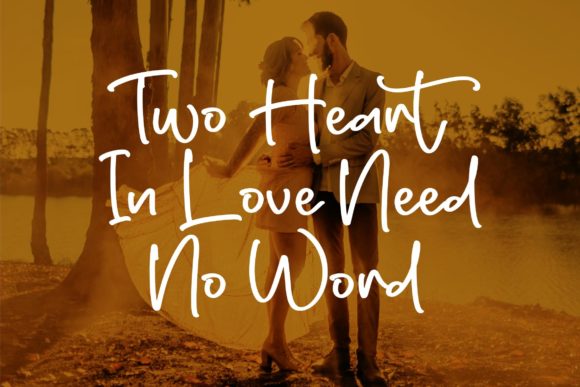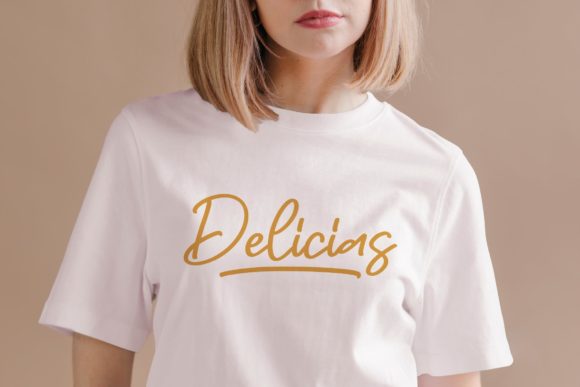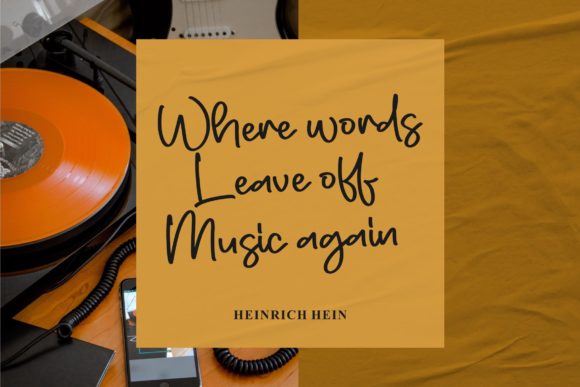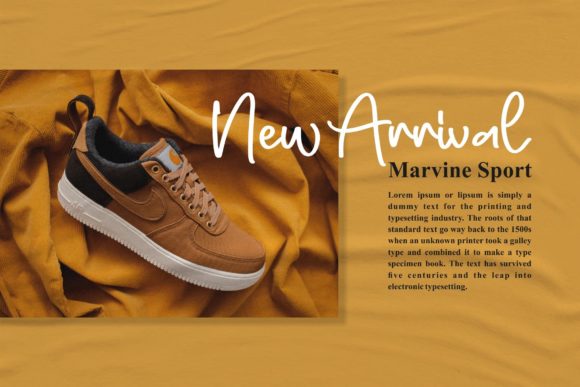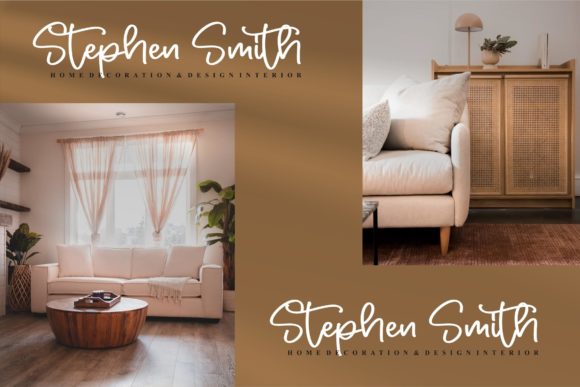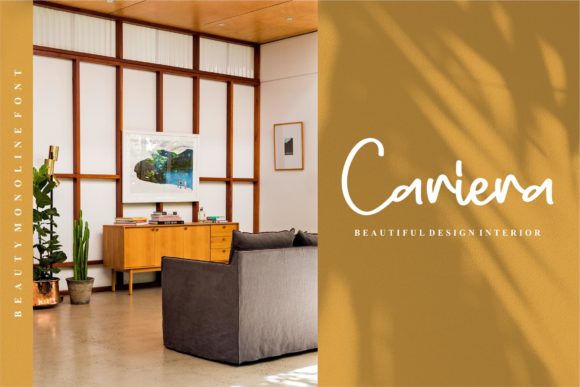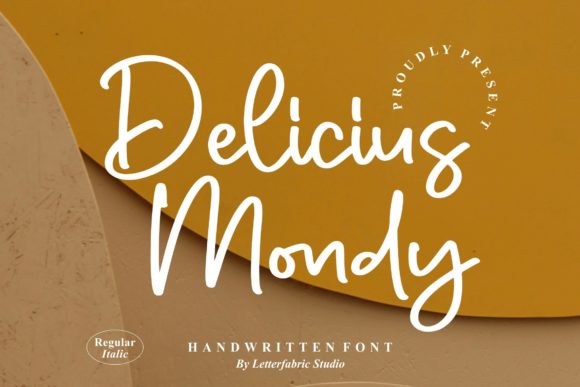
Introducing Delicius Mondy: A Whimsical Handwritten Font for Designers and Crafters
Are you tired of using the same old fonts in your designs? Do you want to add a touch of magic to your posters, flyers, and prints? Look no further than Delicius Mondy, a modern yet whimsical handwritten font that’s sure to transport your designs to a world of wonder. In this article, we’ll take a closer look at Delicius Mondy and explore its features, benefits, and uses.
What is Delicius Mondy?
Delicius Mondy is a carefully crafted handwritten font that combines modern style with a playful, whimsical touch. Its unique letterforms and flowing lines make it perfect for designs that require a personal and creative touch. Whether you’re a designer, crafter, or DIY enthusiast, Delicius Mondy is an excellent choice for adding a dash of personality to your work.
Key Features of Delicius Mondy
- Handwritten style: Delicius Mondy is a handwritten font that exudes warmth and personality, making it perfect for designs that require a human touch.
- Modern yet whimsical: This font combines modern style with a playful, whimsical touch, making it ideal for designers and crafters who want to add a touch of magic to their work.
- Versatile: Delicius Mondy can be used for a wide range of designs, including posters, flyers, prints, and more.
- Easily readable: Despite its whimsical nature, Delicius Mondy is easily readable, making it perfect for designs that require a clear and concise message.
Benefits of Using Delicius Mondy
So, why should you choose Delicius Mondy for your designs? Here are just a few benefits of using this amazing font:
- Adds personality to your designs: Delicius Mondy is a unique and creative font that will add a touch of personality to your designs, setting them apart from the crowd.
- Perfect for creative projects: Whether you’re working on a creative project, such as a poster, flyer, or print, Delicius Mondy is an excellent choice for adding a touch of whimsy and magic.
- High-quality: Delicius Mondy is a high-quality font that’s been carefully crafted to ensure that it looks amazing in any design.
Uses for Delicius Mondy
Delicius Mondy is a versatile font that can be used for a wide range of designs, including:
- Posters: Add a touch of magic to your posters with Delicius Mondy, perfect for advertising events, products, or services.
- Flyers: Create eye-catching flyers with Delicius Mondy, ideal for promoting events, businesses, or causes.
- Prints: Use Delicius Mondy to add a personal touch to your prints, such as brochures, catalogs, or business cards.
- DIY projects: Delicius Mondy is perfect for DIY enthusiasts who want to add a touch of personality to their craft projects, such as signs, banners, or decorations.
In conclusion, Delicius Mondy is an amazing handwritten font that’s perfect for designers and crafters who want to add a touch of magic to their work. With its modern yet whimsical style, Delicius Mondy is sure to immerse your designs in a world of wonder. Whether you’re creating posters, flyers, prints, or DIY projects, Delicius Mondy is an excellent choice for adding a dash of personality and creativity.